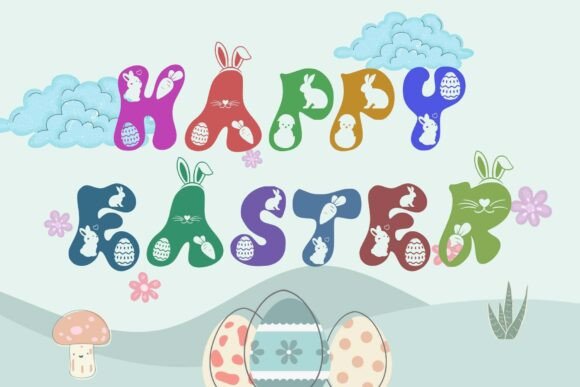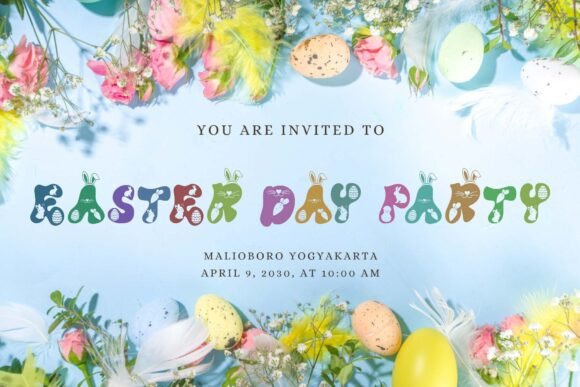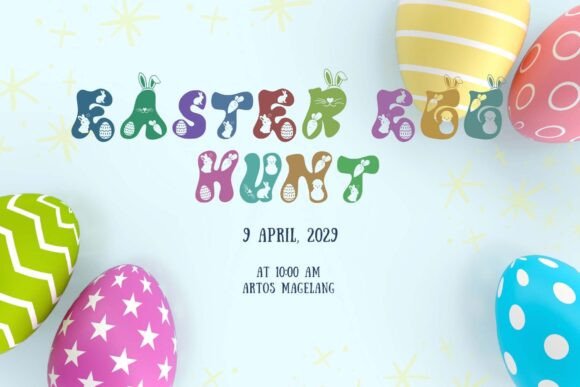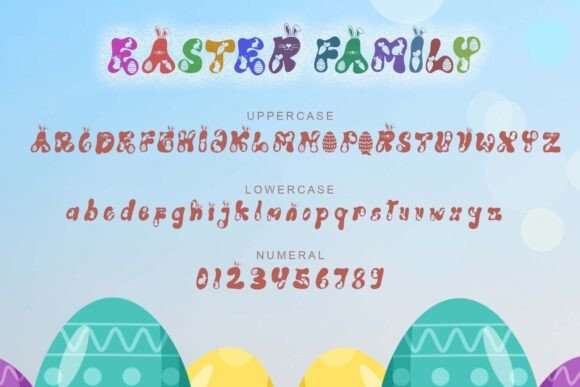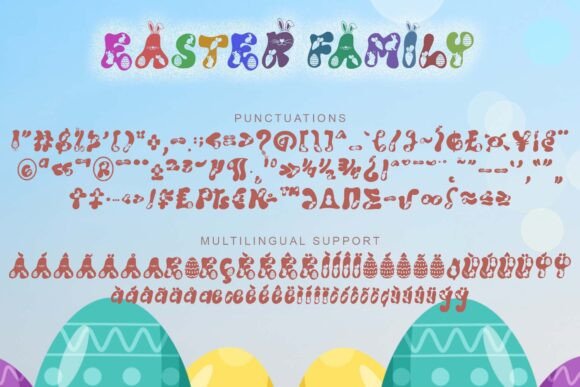
Easter Family Font: The Perfect Addition to Your Easter-Themed Designs
Are you looking for a unique and adorable font to make your Easter-themed designs stand out? Look no further than the Easter Family Font! This charming display font is perfect for creating eye-catching titles, logos, stickers, posters, and more. In this article, we’ll dive into the features and benefits of the Easter Family Font and explore how you can use it to elevate your designs.
What is Easter Family Font?
Easter Family Font is a one-of-a-kind display font that is sure to bring a smile to your face. Its cute and playful design makes it ideal for Easter-themed projects, but it’s also versatile enough to be used for animal, comic, cartoon, and funny movie titles. The font comes with a range of features that make it perfect for designers and crafters, including:
- Uppercase and lowercase letters
- Numerals and punctuation marks
- Multilingual support
Key Features of Easter Family Font
So, what makes Easter Family Font so special? Here are some of its key features:
- Unique and Cute Design: The Easter Family Font has a distinctive and adorable design that is sure to grab attention. Its playful curves and lines make it perfect for creating fun and engaging designs.
- Uppercase and Lowercase Letters: The font comes with both uppercase and lowercase letters, giving you the flexibility to create a range of designs.
- Numerals and Punctuation Marks: The font includes numerals and punctuation marks, making it easy to create complete and professional-looking designs.
- Multilingual Support: The Easter Family Font supports multiple languages, making it a great choice for designers who work with international clients or want to create designs for a global audience.
Uses for Easter Family Font
The Easter Family Font is incredibly versatile and can be used for a wide range of design projects, including:
- Easter-themed designs: Create eye-catching Easter egg designs, bunny-themed posters, and more with this adorable font.
- Animal designs: The font’s playful design makes it perfect for animal-themed designs, such as zoo or wildlife posters.
- Comic and cartoon designs: Add a touch of fun and humor to your comic and cartoon designs with the Easter Family Font.
- Funny movie titles: Create hilarious movie titles and posters with this unique font.
- Logos and branding: Use the Easter Family Font to create memorable logos and branding materials for your clients or business.
- Stickers and print designs: The font is perfect for creating fun and colorful stickers, prints, and other designs.
Tips for Using Easter Family Font
Here are some tips for getting the most out of the Easter Family Font:
- Experiment with colors: The Easter Family Font looks great in bright, bold colors, so don’t be afraid to experiment and find the perfect color scheme for your design.
- Play with font sizes: The font looks great in a range of sizes, from small and delicate to large and bold.
- Combine with other fonts: Try pairing the Easter Family Font with other fonts to create a unique and interesting design.
The Easter Family Font is a unique and adorable display font that is perfect for Easter-themed designs, animal designs, comic and cartoon designs, and more. Its cute and playful design, combined with its range of features, make it a great choice for designers and crafters. Whether you’re creating logos, stickers, posters, or print designs, the Easter Family Font is sure to bring a touch of fun and humor to your projects. So why not give it a try and see what amazing designs you can create?